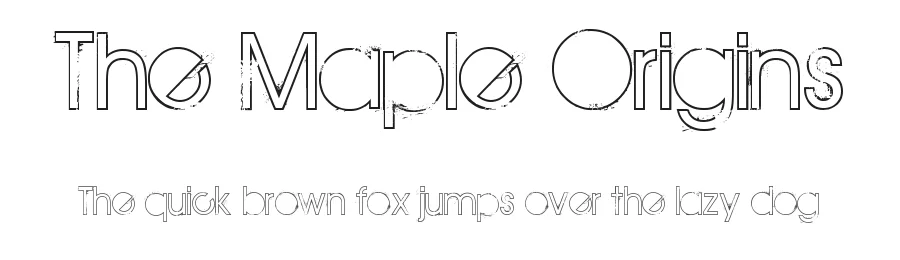
About Marvin Font
Marvin is a decorative font designed by Smart Designs. It includes 181 glyphs, a medium weight, OTF (CFF) format, and 209 languages. Marvin is free to download; check the license details on this page before commercial use. Decorative fonts like Marvin work best for logos, posters, packaging, and standout headlines.
Marvin Font is a decorative font that shines as a display or heading face. Pair it with a clean sans-serif or serif font for body text β the contrast creates a clear hierarchy while the two styles stay balanced and easy to read.